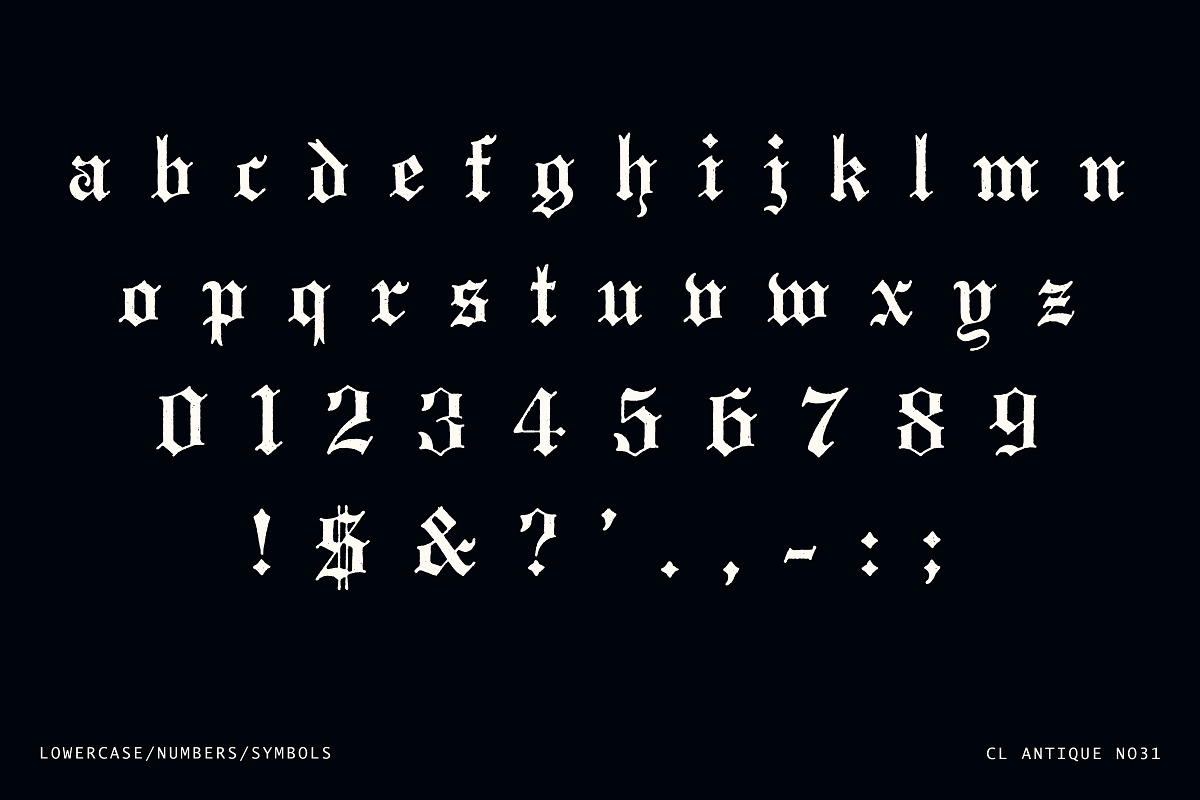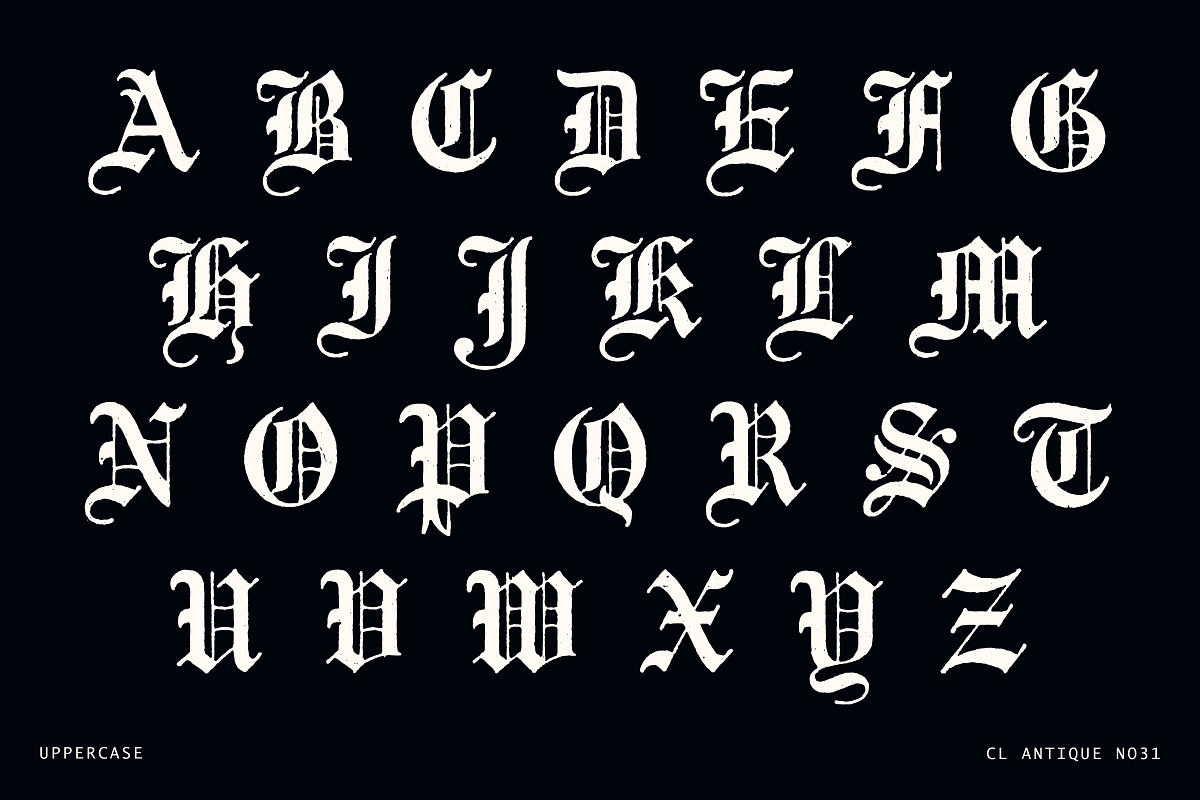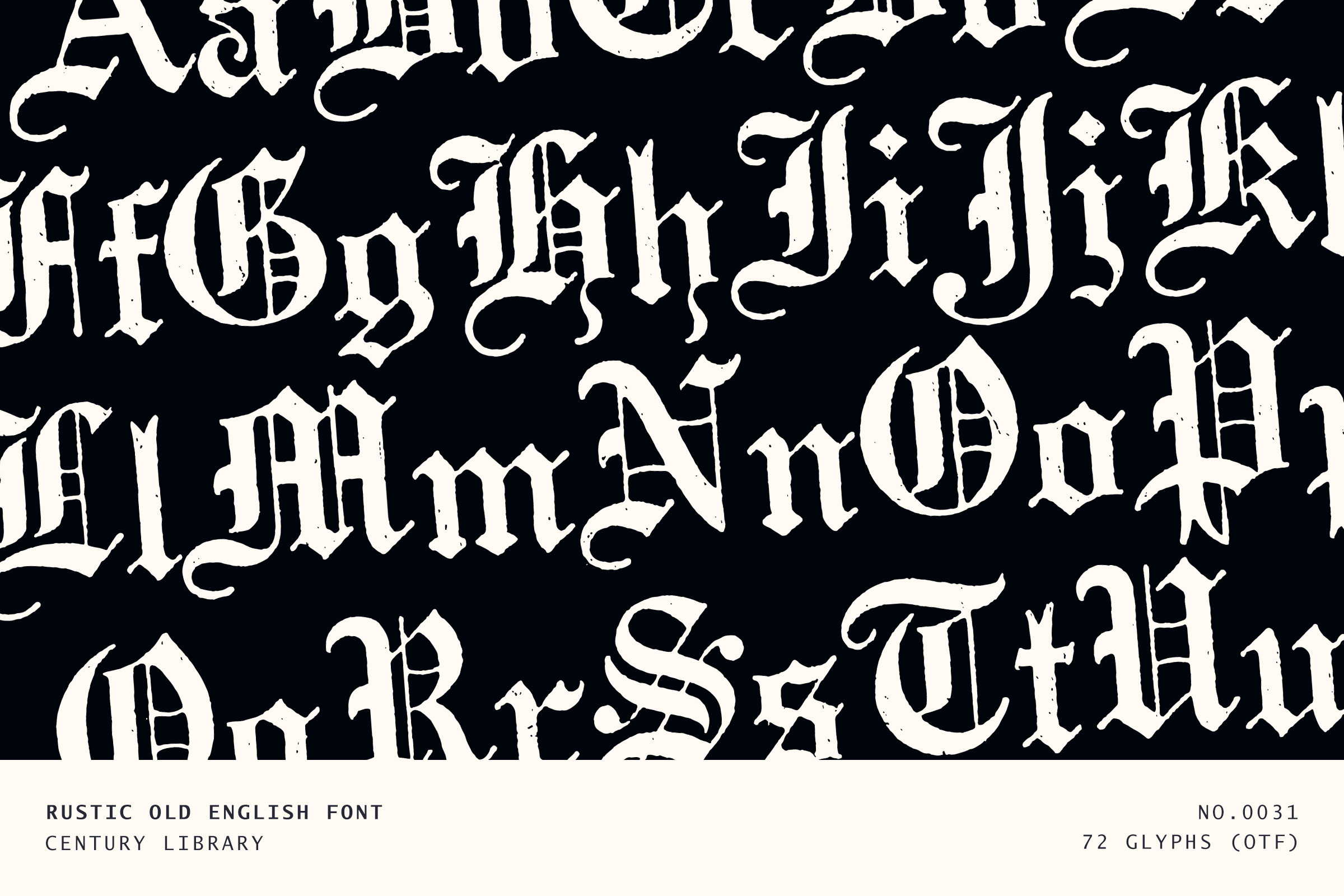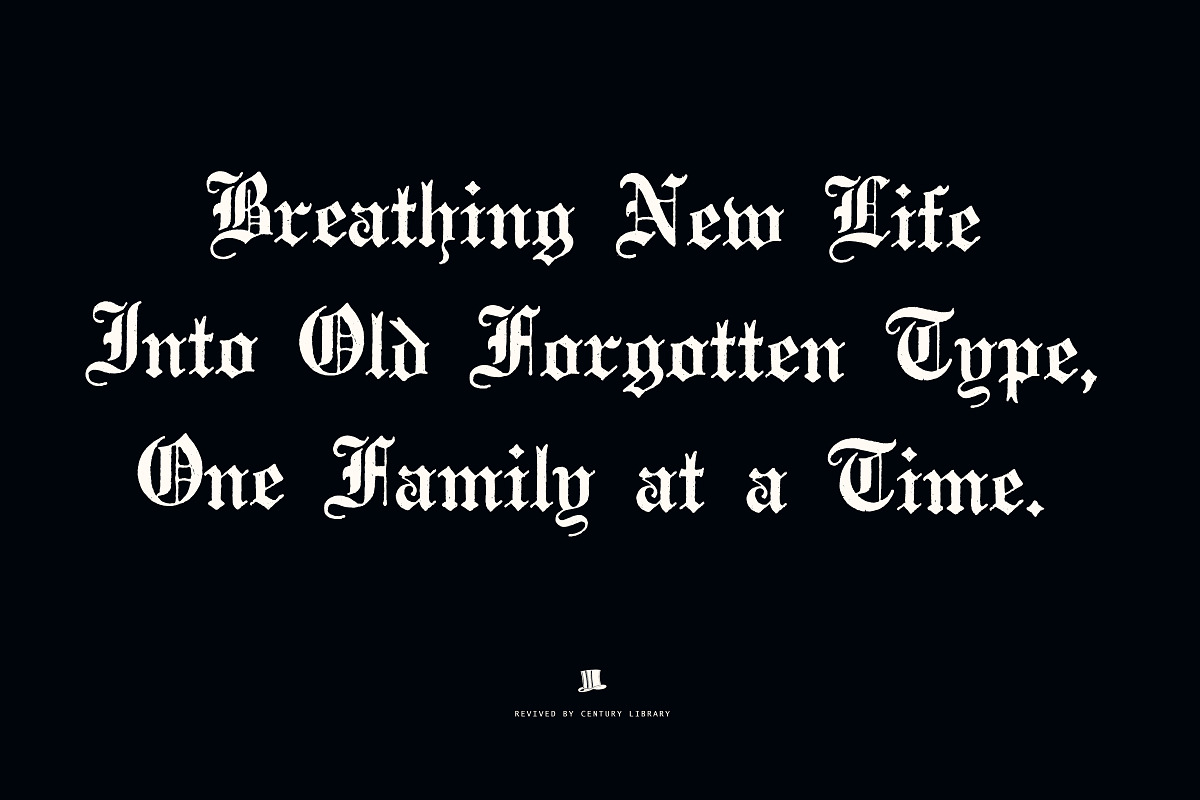
Rustic Old English Blackletter Font
CL Antique No.31 is a bold, rustic blackletter font revived from a timeworn 19th-century Old English specimen. It captures the gritty texture of worn print with strong vertical strokes, ornamental caps, and rough, irregular edges throughout.
This isn’t your pristine, polished gothic - it’s rugged, dramatic, and full of character. Perfect for designs that need to feel a little haunted, a little historic, and a lot handmade. Whether you're crafting a vintage beer label, a spooky book cover, or an edgy band tee, this one brings the drama.
The uppercase is stately and commanding, while the lowercase carries a compact charm. Everything has been meticulously restored from antique sources and formatted for modern use.